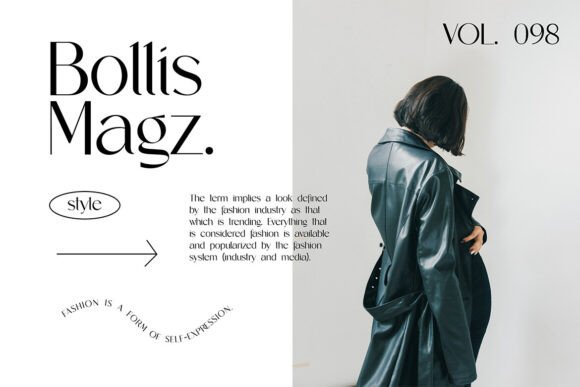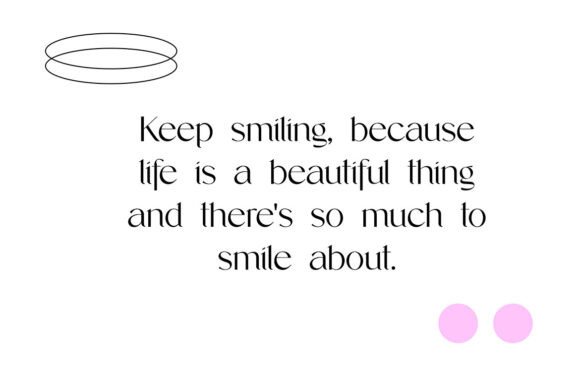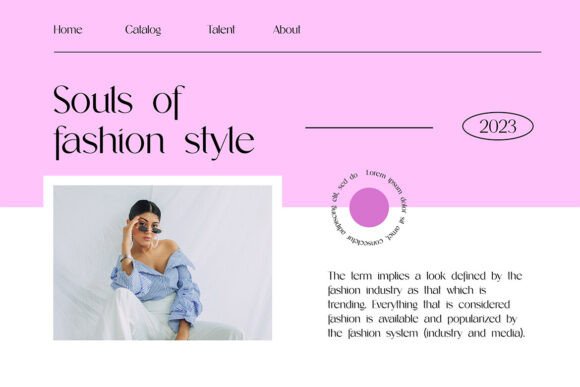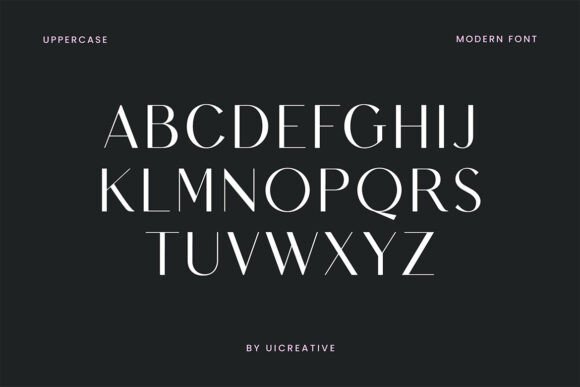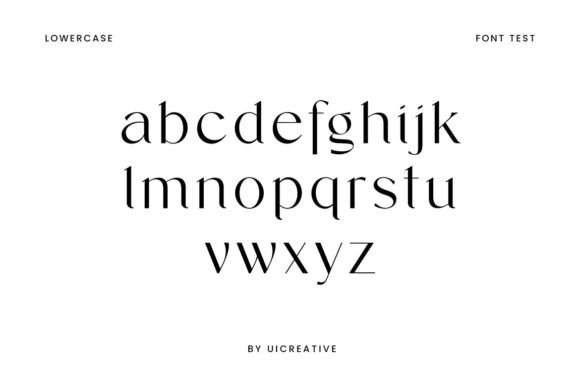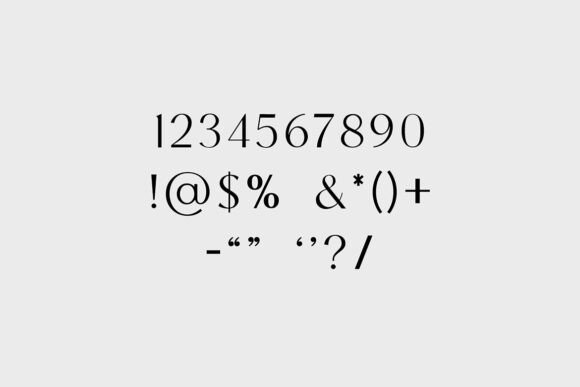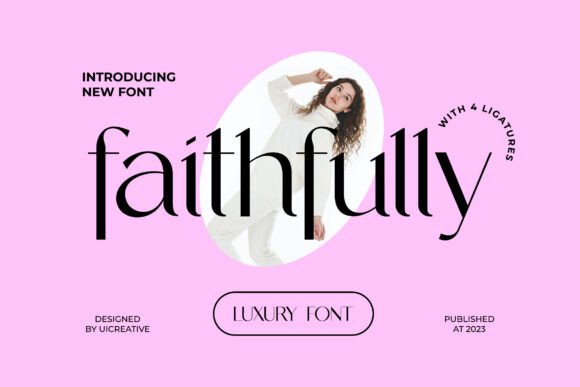
Introducing Faithfully Font: A Modern Serif Font for Elegant Designs
In the world of typography, a font can make or break the aesthetic of a design. For designers and crafters looking for a font that exudes elegance, sophistication, and style, Faithfully Font is an excellent choice. This modern serif font is designed to make your designs stand out, whether you’re working on a signature, logo, wedding invitation, or magazine cover.
What is Faithfully Font?
Faithfully Font is a modern display font that embodies the perfect blend of classic and contemporary design elements. Its serif design gives it a timeless feel, while its clean lines and elegant curves make it distinctly modern. This font is versatile and can be used for a wide range of projects, from traditional stationery and wedding designs to modern website headers and branding.
Key Features of Faithfully Font
- Elegant and Stylish: Faithfully Font boasts an elegant and stylish appearance, making it perfect for designs that require a touch of sophistication.
- Masculine and Feminine Qualities: This font uniquely displays both masculine and feminine qualities, making it suitable for a broad spectrum of design projects, especially in fashion-related branding and editorial design.
- Versatile: From signature and stationery to logo design, wedding invitations, typography quotes, magazine or book covers, and website headers, Faithfully Font can elevate any project.
- Branding Ready: The font is designed with branding in mind, offering a distinct personality that can help your brand stand out.
Use Cases for Faithfully Font
The versatility of Faithfully Font makes it suitable for numerous applications. Here are some of the best use cases:
- Wedding and Event Design: Create stunning wedding invitations, save-the-date cards, and event banners that exude elegance and class.
- Branding and Logo Design: Give your brand a sophisticated look with a custom logo or wordmark designed using Faithfully Font.
- Stationery and Printables: Elevate your business or personal stationery, including letterheads, business cards, and thank you cards.
- Digital and Editorial Design: Use Faithfully Font for website headers, magazine covers, and editorial spreads to add a touch of elegance and modernity.
- Fashion and Beauty: Perfect for fashion-related branding, editorial design, and advertising, where a blend of modernity and sophistication is required.
Why Choose Faithfully Font?
Choosing Faithfully Font for your design projects comes with several benefits:
- Unique Aesthetic: Stand out with a font that offers a unique blend of modern and classic design elements.
- Time-Saving: With its wide range of applications, Faithfully Font is a one-stop solution for many of your design needs.
- Easy to Read: Despite its elegant and stylish appearance, the font maintains readability, making it suitable for both headings and body text.
- Support for Various Languages: Faithfully Font likely supports multiple languages, making it a great choice for global brands and projects.
Faithfully Font is more than just a typeface; it’s a design statement. Its modern serif design, elegant appearance, and versatile nature make it an excellent addition to any designer’s toolkit. Whether you’re working on a branding project, wedding design, or digital content, Faithfully Font can help you achieve that perfect blend of modernity and sophistication. With its unique aesthetic and wide range of applications, Faithfully Font is poised to become your go-to font for creating beautiful, classy, and stylish designs.